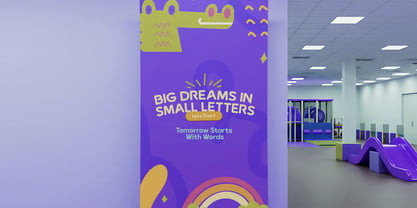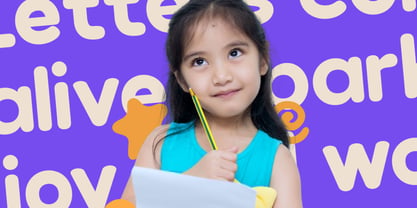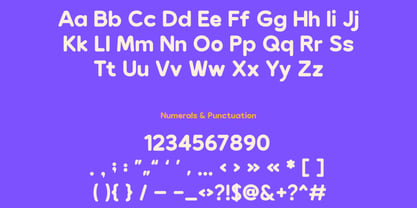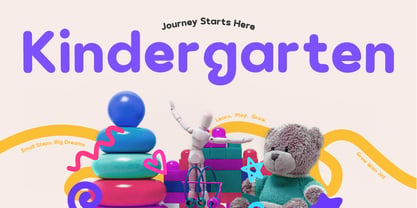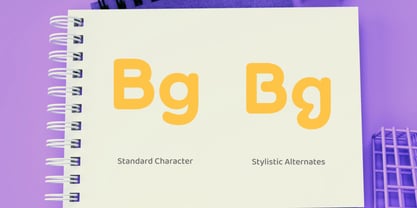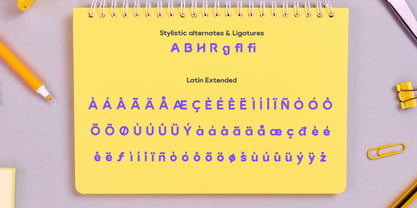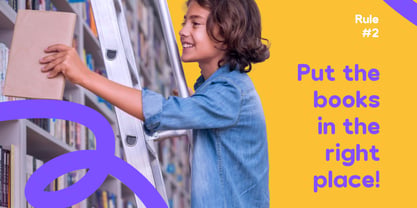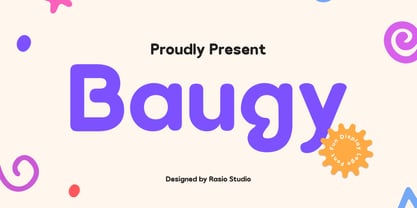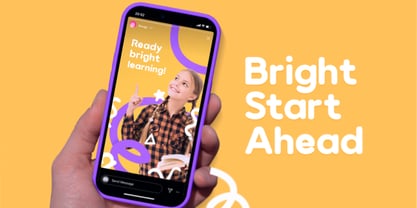
Baugy
von Rasio Studio
Die Schriftfamilie Baugy wurde von Fajar Indra entworfen und von Rasio Studio veröffentlicht. Baugy enthält 1 Stile. Mehr über diese Familie
Baugy is a cheerful, soft, and friendly rounded display typeface crafted to add personality and approachability to your designs. Its smooth contours, generously rounded terminals, and playful character shapes create a joyful visual feel that works beautifully in display contexts. Baugy includes a full set of uppercase and lowercase letters, numerals, punctuation, and extended Latin support for multilingual use. The font also features optional stylistic alternates that introduce quirky, expressive variants for select glyphs, giving designers creative flexibility and visual flair. Baugy’s clean, curvy forms make it particularly effective for headlines, logos, packaging, children’s products, posters, and branding projects that call for a fun and engaging typographic voice. While it excels in display usage, its clarity and balance also support short bursts of text in friendly editorial layouts.
Designer: Fajar Indra
Foundry: Rasio Studio